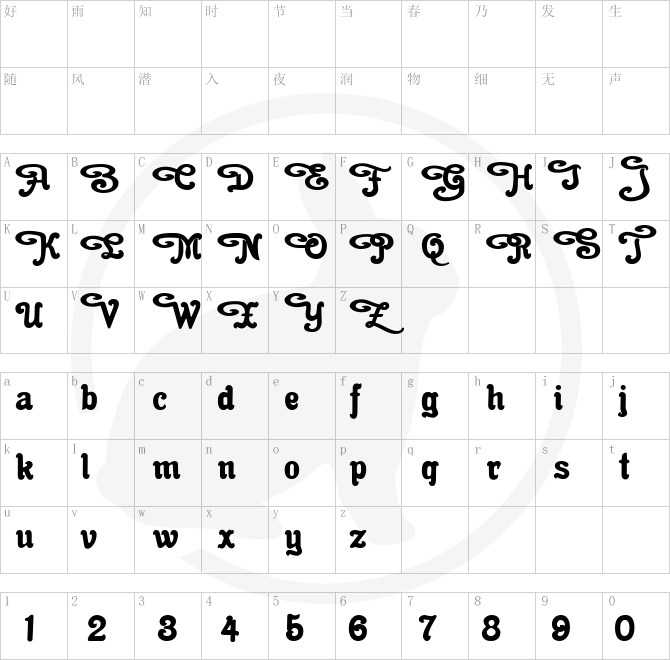
- Font Name:Cacao Fat Swashes
Cacao-Fat-Swashes-PDF.ttf is a very beautiful artistic font, Cacao-Fat-Swashes-PDF.ttf is widely used in the design and printing of various books and pictures,Cacao-Fat-Swashes-PDF.ttf has a strong visual impact,Cacao-Fat-Swashes-PDF.ttf is a commonly used font in newspapers, magazines and books, and is used in posters, e-commerce Poster design, store design, logo design, font design and other fields.Cacao-Fat-Swashes-PDF.